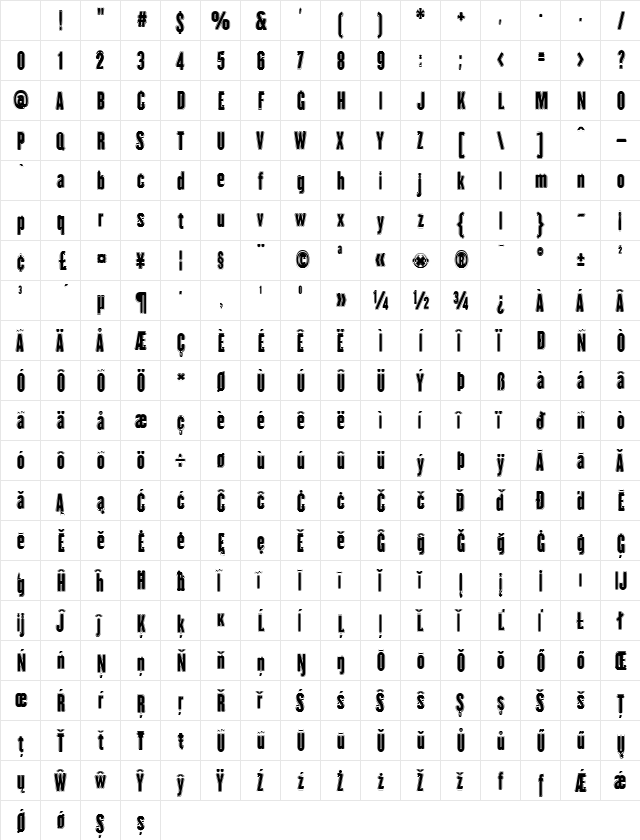
Complete H.H. Agallas Regular glyph index. Displaying only characters natively supported by H.H. Agallas Regular font.
H.H. Agallas is a composed and adaptable typeface that performs quietly and consistently across a wide range of design contexts.